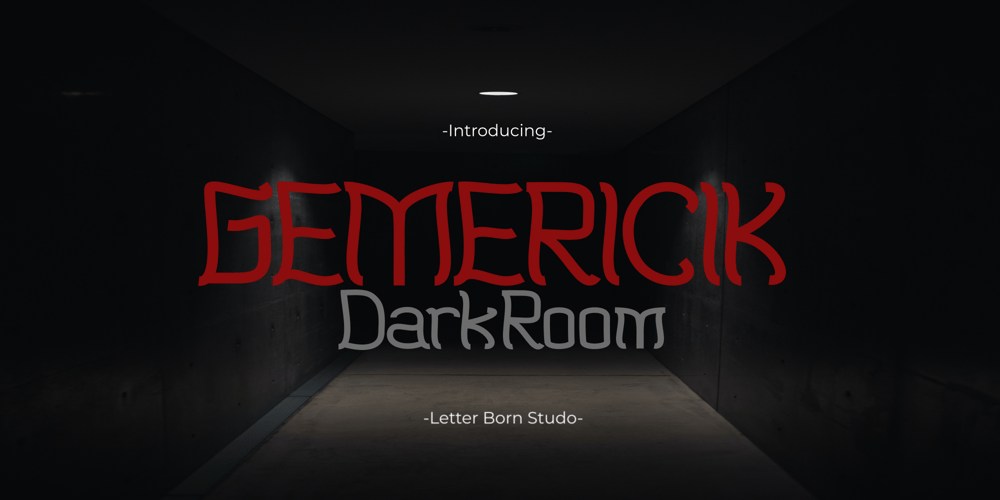
Gemericik
Gemericik font
Gemericik Font Family was designed by Firman Satrio and published by Letter Born Studio. Gemericik contains 1 styles and family package options. Gemericik is a display font designed to capture attention. With bold shapes and artistic details, this font creates a luxurious and daring impression on posters, titles, or taglines. Its unique elegance makes every design stand out and unforgettable. Choose Gemericik to elevate your message to the next level